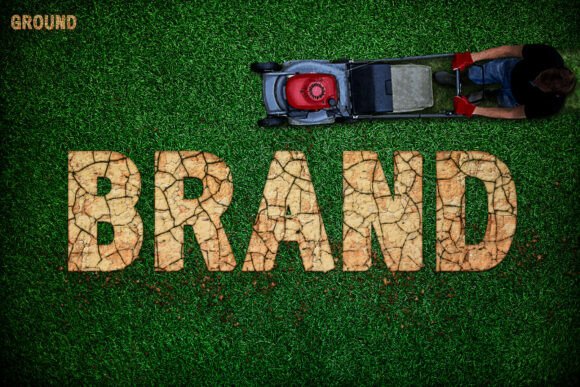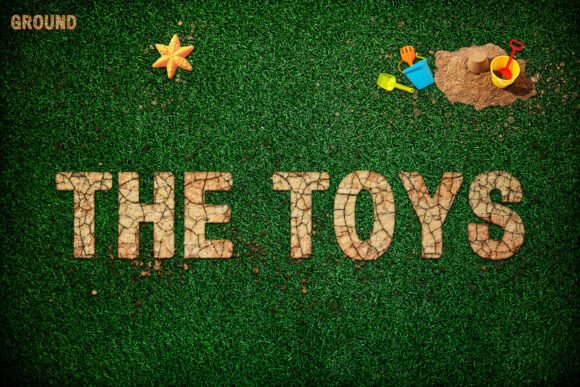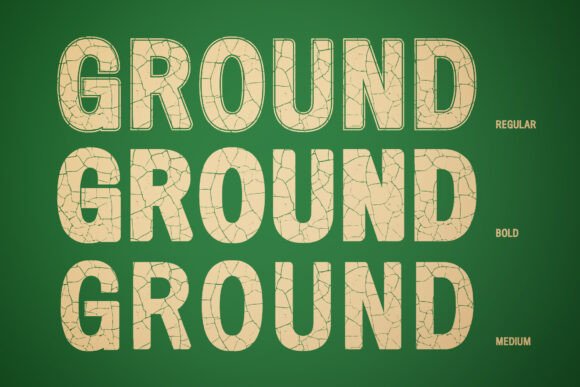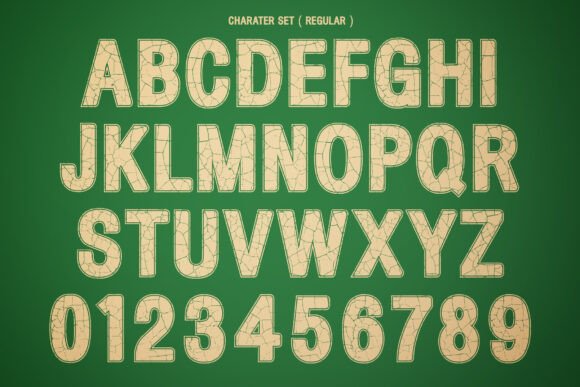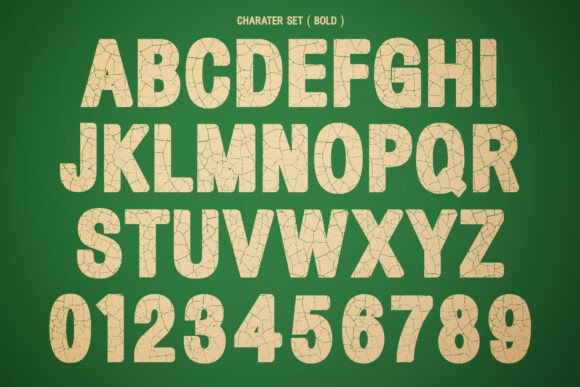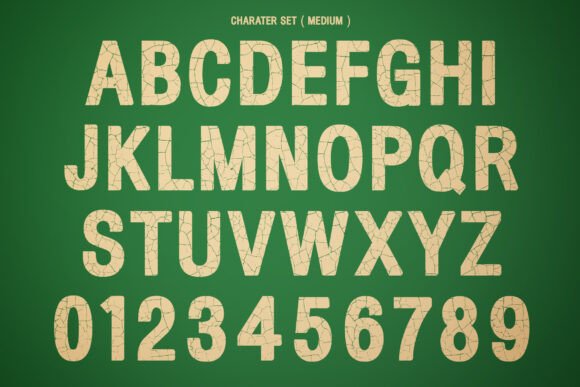
Introducing Ground Font: Elevate Your Designs with a Distressed Display Font
Are you tired of using the same old fonts in your designs? Do you want to add a touch of uniqueness and personality to your projects? Look no further than Ground Font, a distressed display font that is sure to brighten up each of your designs. Ground is a Ground and Land distressed display font that will add a bold and eye-catching element to your work, and we’re excited to dive into its features and benefits.
What is Ground Font?
Ground Font is a carefully crafted distressed display font that is designed to add a rugged and earthy feel to your designs. With its unique blend of rough and smooth textures, Ground Font is perfect for designers and crafters who want to add a touch of grit and realism to their work. Whether you’re working on a branding project, a poster, or a social media graphic, Ground Font is sure to make your design stand out.
Key Features of Ground Font
- Distressed Texture: Ground Font features a unique distressed texture that gives it a rough and rugged feel. This texture adds a layer of depth and visual interest to your designs.
- Display Font: Ground Font is designed specifically as a display font, making it perfect for headlines, titles, and other large-format text.
- Ground and Land Theme: The font’s theme is inspired by the earth and land, giving it a natural and organic feel.
Benefits of Using Ground Font
So why should you choose Ground Font for your next design project? Here are just a few benefits of using this versatile font:
- Adds Visual Interest: Ground Font’s distressed texture and unique design make it a great way to add visual interest to your designs.
- Evokes Emotion: The font’s rugged and earthy feel can evoke emotions and create a connection with your audience.
- Versatile: Ground Font can be used in a variety of design projects, from branding and advertising to packaging and social media graphics.
- Stand Out: With its bold and eye-catching design, Ground Font is sure to make your design stand out from the crowd.
Who is Ground Font for?
Ground Font is perfect for designers and crafters who want to add a touch of uniqueness and personality to their designs. This includes:
- Graphic Designers: Graphic designers who want to create bold and eye-catching designs will love Ground Font.
- Branding Experts: Branding experts who want to create a unique and memorable brand identity will appreciate Ground Font’s distressed texture and rugged feel.
- Crafters: Crafters who want to add a personal touch to their projects will love Ground Font’s unique design and versatility.
Ground Font is a powerful and versatile distressed display font that is sure to brighten up each of your designs. With its unique blend of rough and smooth textures, Ground Font adds a bold and eye-catching element to your work. Whether you’re a graphic designer, branding expert, or crafter, Ground Font is a great choice for anyone looking to add a touch of uniqueness and personality to their designs. So why wait? Download Ground Font today and start elevating your designs to the next level.